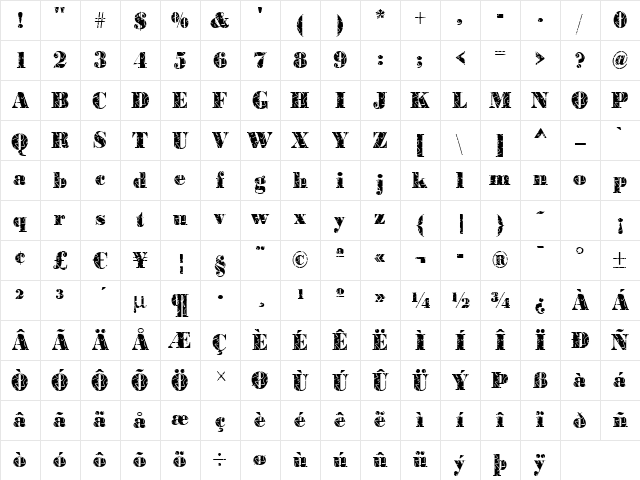
BodoniStrings Regular Free Font
BodoniStrings Regular
Design Context for BodoniStrings
BodoniStrings is a composed and adaptable typeface that performs quietly and consistently across a wide range of design contexts.